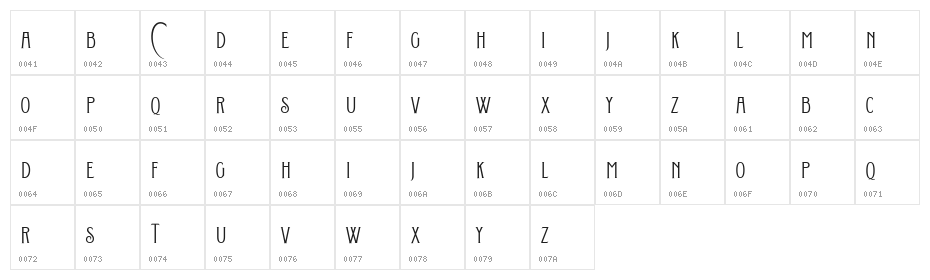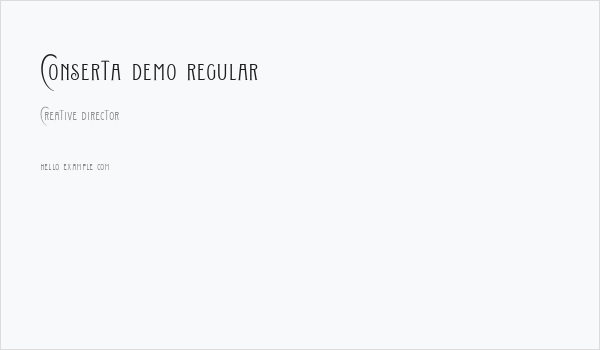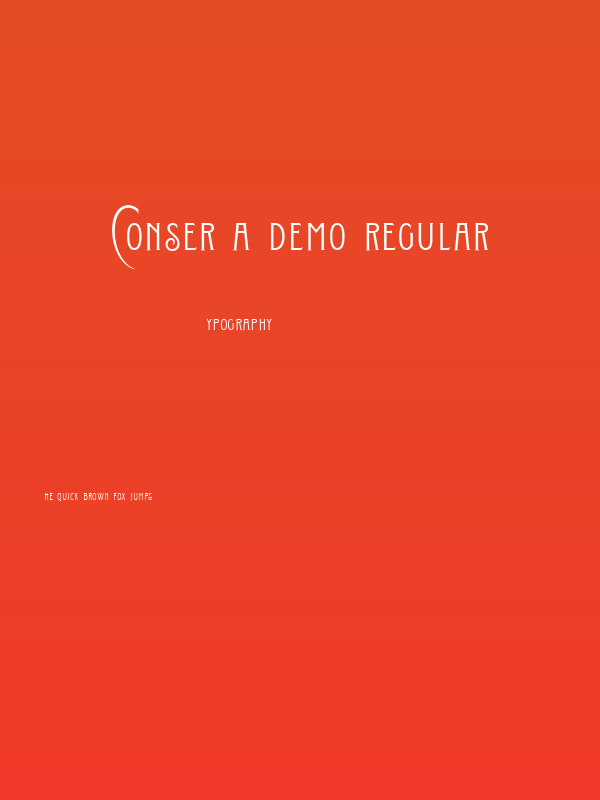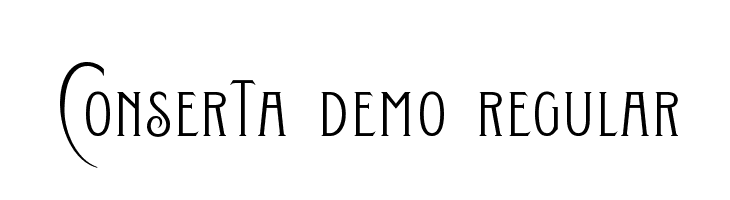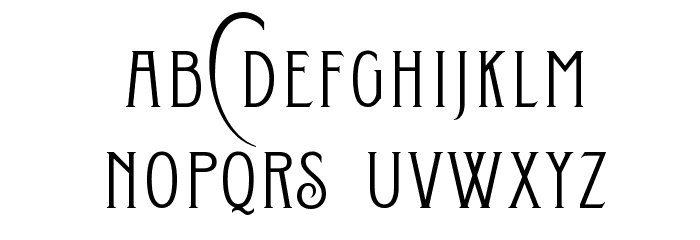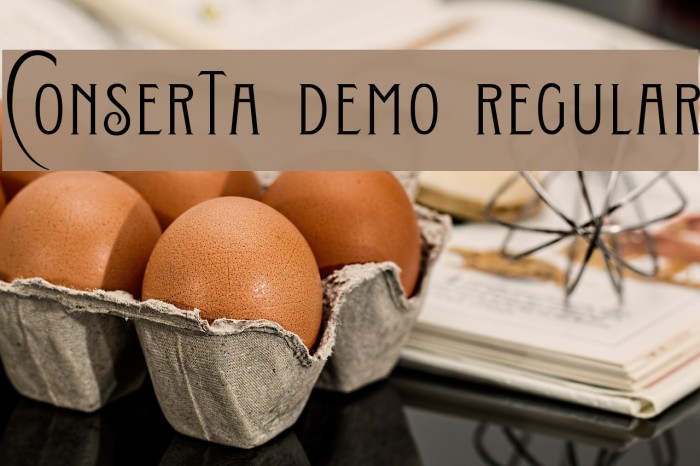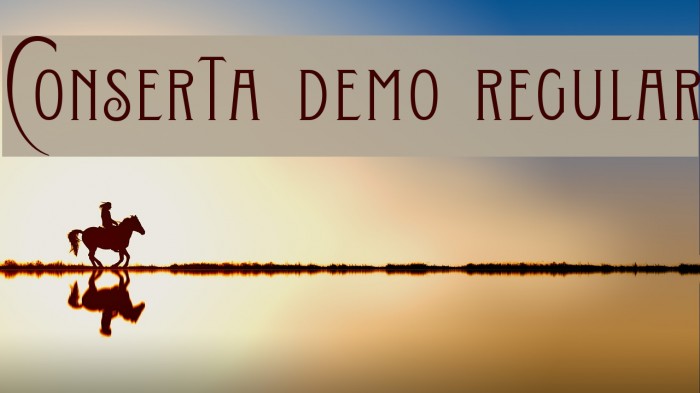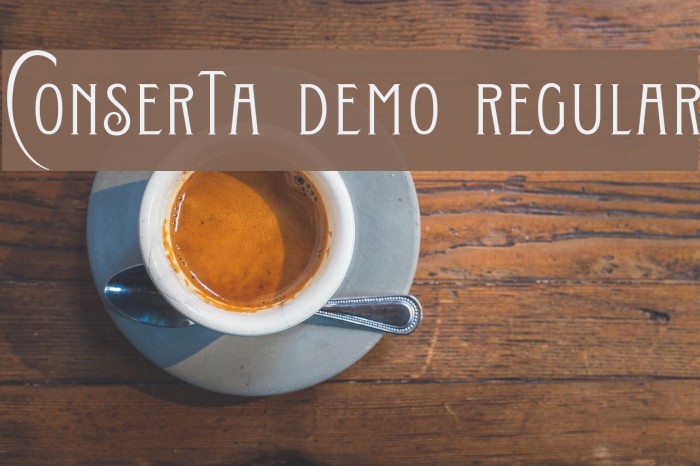
Conserta DEMO Regular Font
Conserta DEMO Regular Description
This font features a unique blend of modern and vintage elements, characterized by its tall, narrow letterforms and distinctively curved serifs. The uppercase letters exhibit a sophisticated elegance with elongated vertical strokes and subtle curves, while the lowercase letters maintain a consistent style with a touch of whimsy, particularly noticeable in the 's' and 't'. The numbers are designed to complement the overall aesthetic, maintaining the same narrow and elongated form. Special characters like the ampersand and question mark are crafted with artistic flair, adding to the font's decorative appeal. The overall design is both stylish and versatile, making it suitable for a variety of creative applications.
| Overall Style | Modern Vintage |
| Proposed Projects | Ideal for branding, editorial design, posters, and invitations where a touch of elegance and uniqueness is desired. |